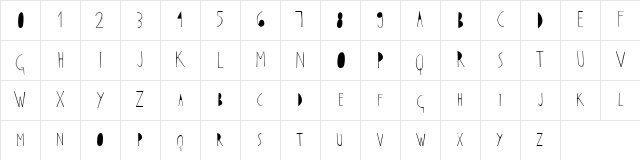
Otun Regular
Complete Otun Regular glyph index. Displaying only characters natively supported by Otun Regular font.
Design Context for Otun
Otun is a composed and adaptable typeface that performs quietly and consistently across a wide range of design contexts.